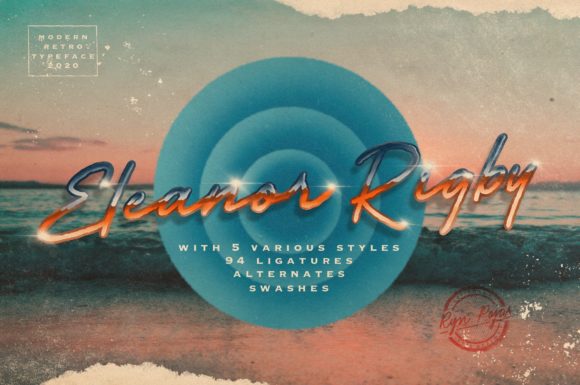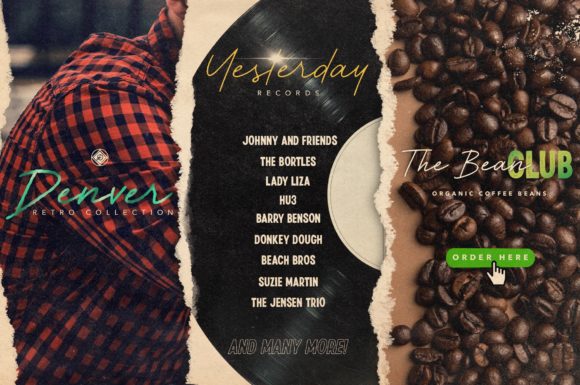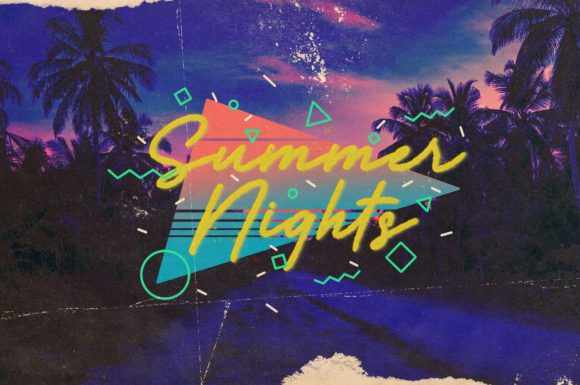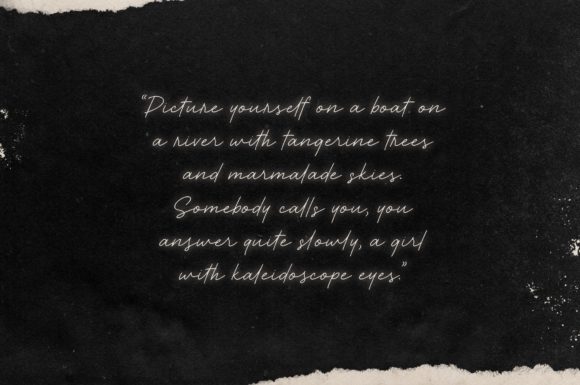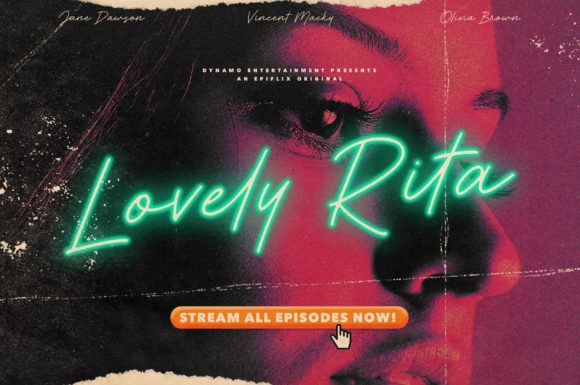
Eleanor Rigby Font
About Eleanor Rigby Font
Eleanor Rigby is a great handwritten font. It features a vintage style that makes it perfect for creating retro style designs.
Use Eleanor Rigby to create logos, packaging, branding, magazine, website, brochures, and much more.